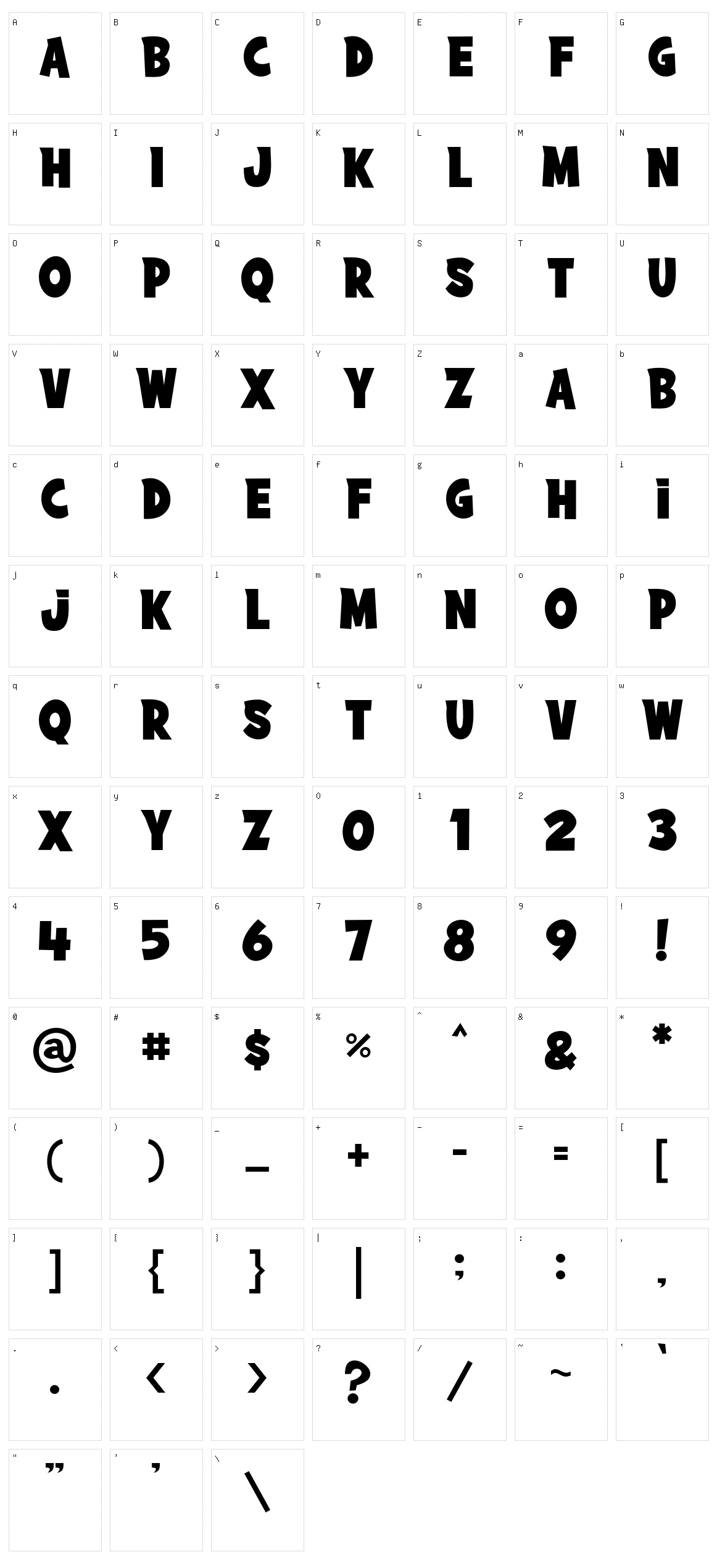
The free font Dragon Kids is carefully designed by Fachranheit, showcasing a thoughtful balance of creativity and usability and falls under the Cartoon font style. When you download the ZIP file, it contains only 50.64 KB of font files, making it lightweight and quick to download. Please review the license details below to understand permitted usage and distribution rights. If license information is not available, we recommend using this font for personal projects only or contacting the author directly for commercial usage permissions.